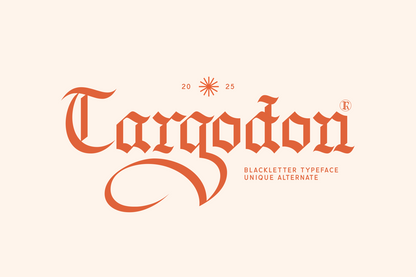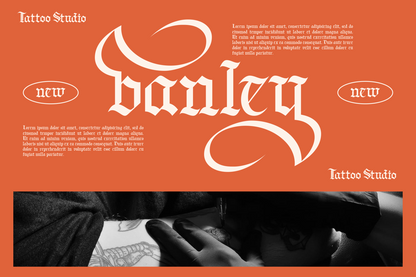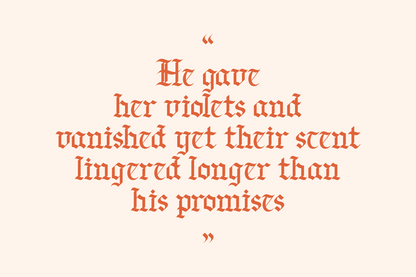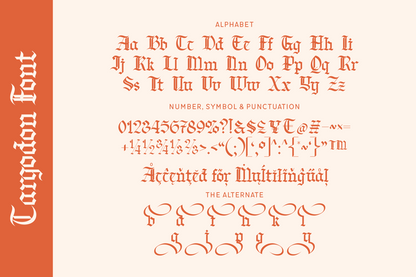
Cargodon is a stylish blackletter font featuring ornate curves and flowing alternates. Perfect for logos, beverage labels, and creative posters seeking gothic sophistication with a modern twist.